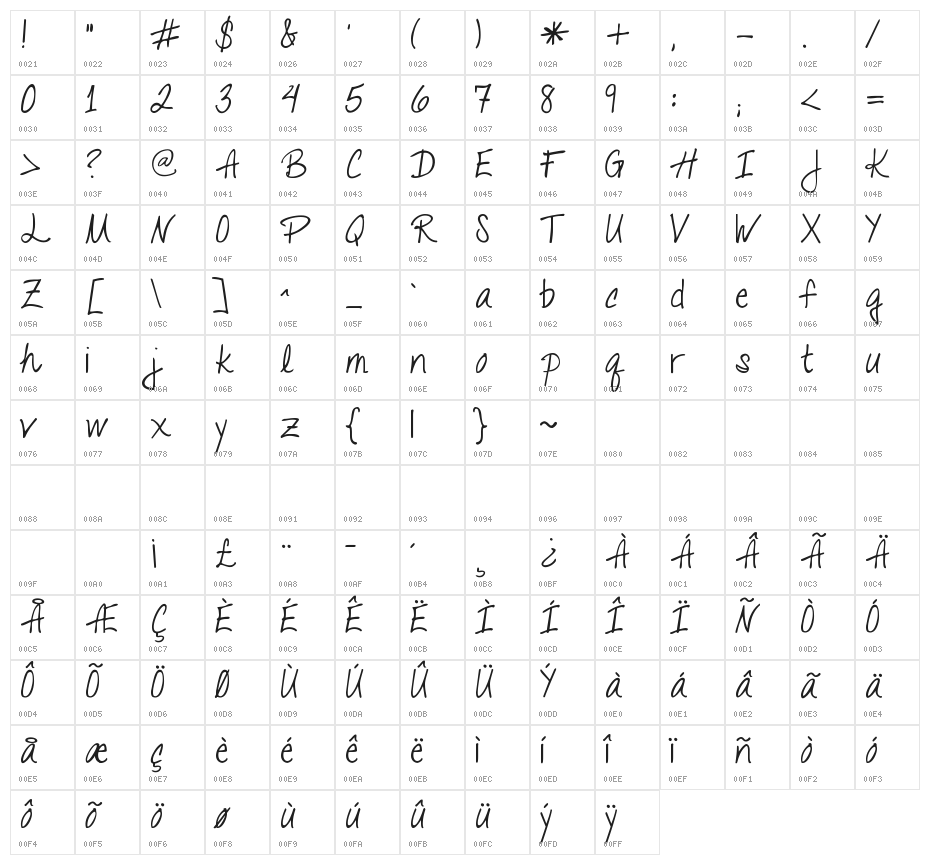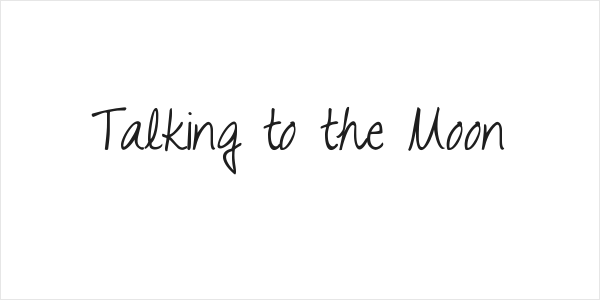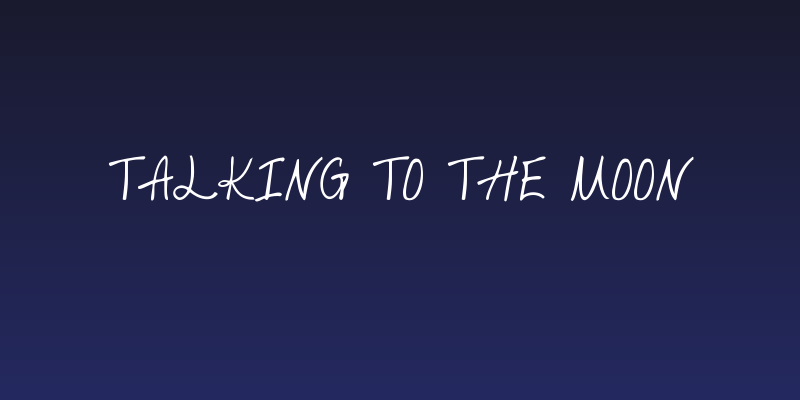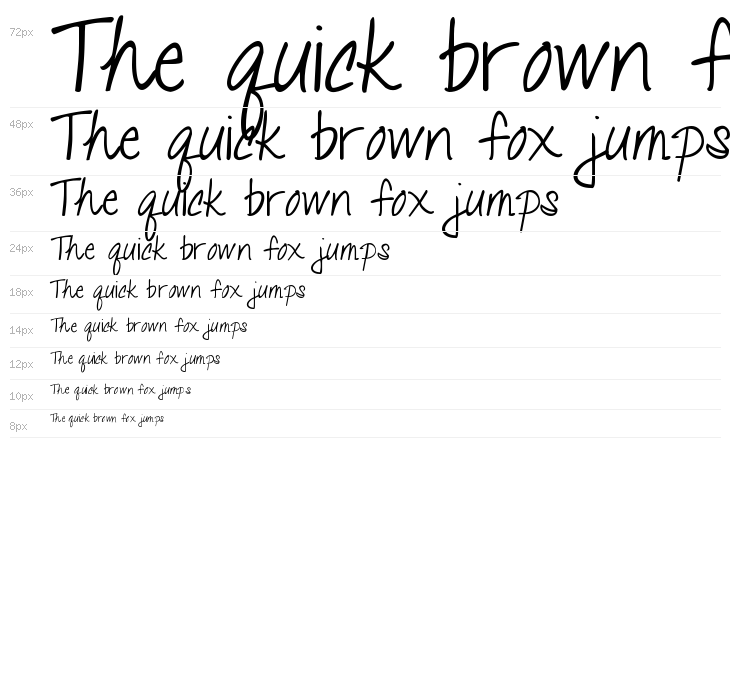
Talking to the Moon Font
Talking to the Moon Description
This font features a playful and casual handwritten style, characterized by its fluid and dynamic strokes. The uppercase letters are slightly slanted, adding a sense of movement and informality. The lowercase letters maintain a consistent flow, with some letters like 'g' and 'y' having distinctive loops that enhance the handwritten feel. The numerals are clear and legible, matching the overall aesthetic with their rounded and slightly irregular shapes. Special characters are well-integrated, maintaining the same casual and approachable style. This font is perfect for projects that require a personal touch, such as greeting cards, invitations, or informal branding.
| Use Case | Headlines, Informal text, Personal projects |
| Proposed Projects | Ideal for greeting cards, invitations, personal branding, and informal communication. |